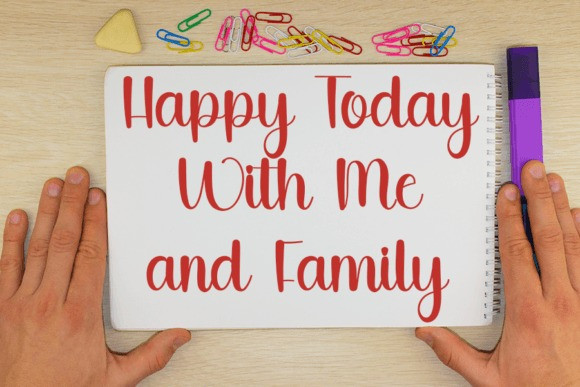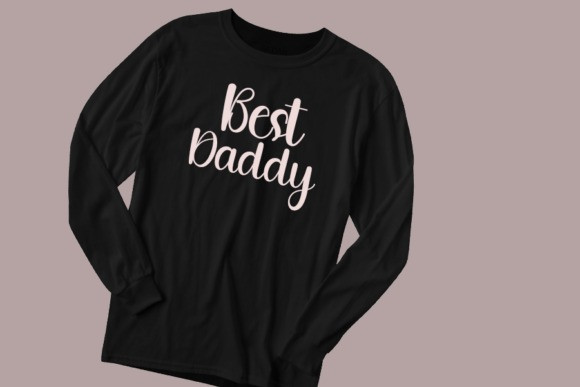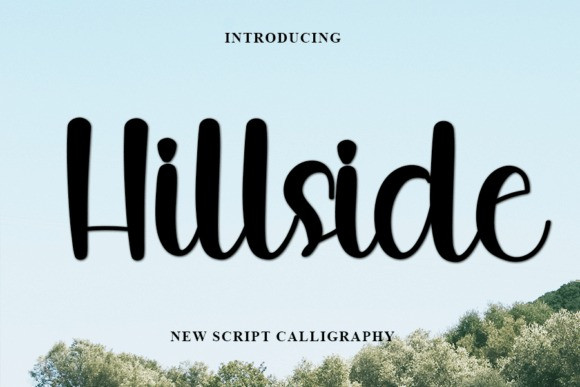
Hillside Font
Hillside Font is a beautiful and refined handwritten font. Classy and modern, it is perfect for logos, branding, invitations, stationery, wedding designs, social media postsEvery donation you give us is very appreciative. PayPal account for donations: